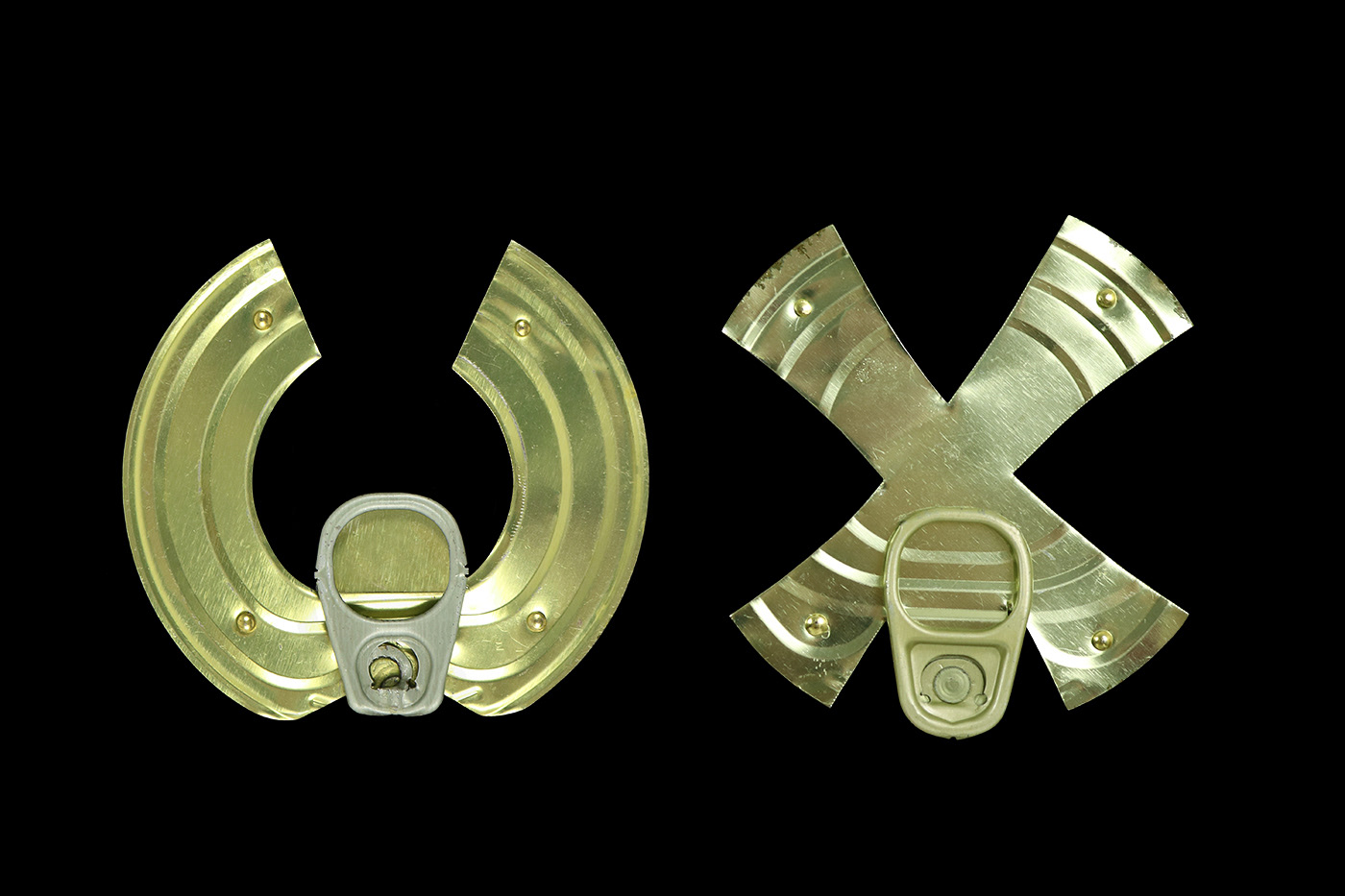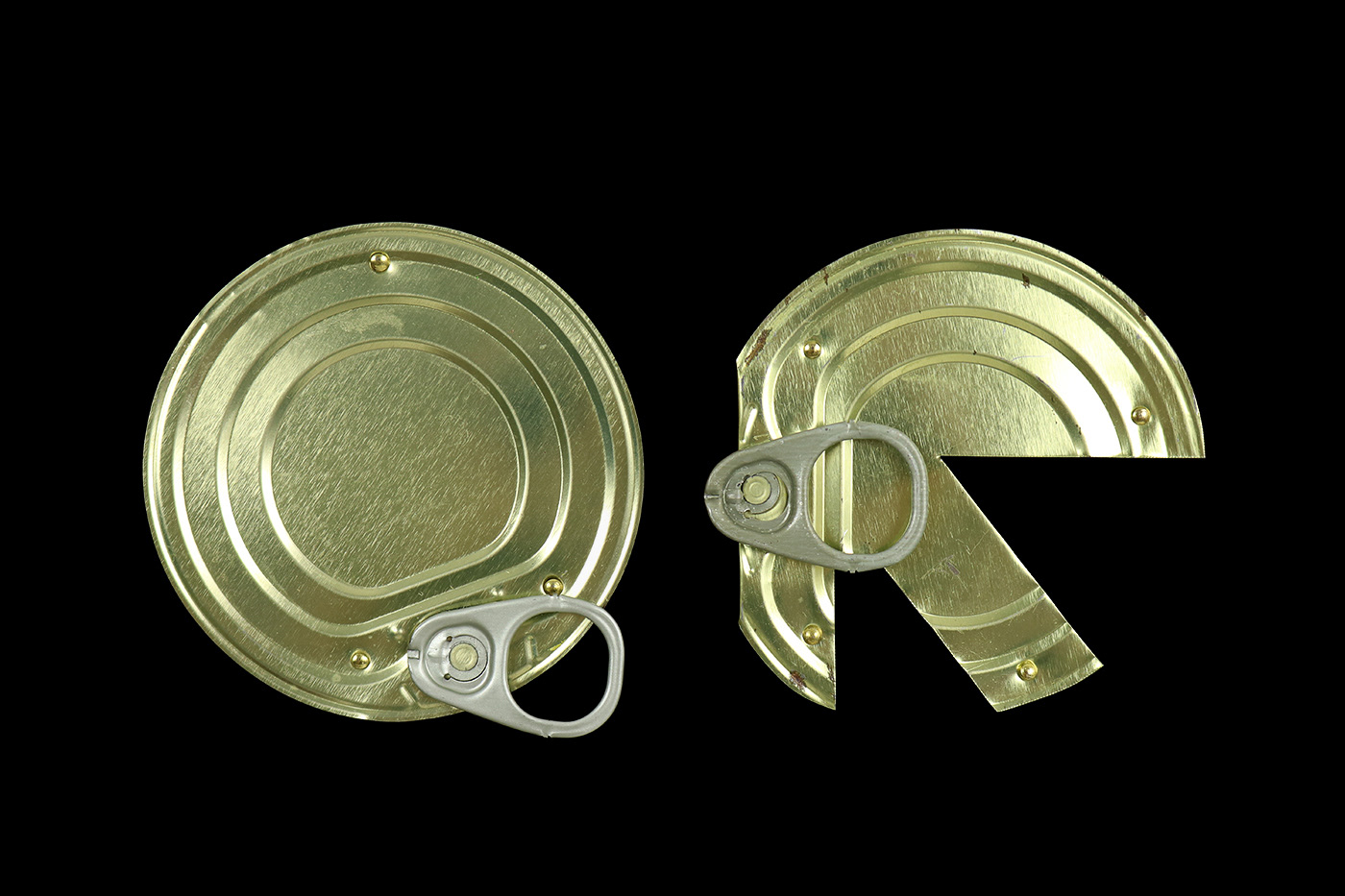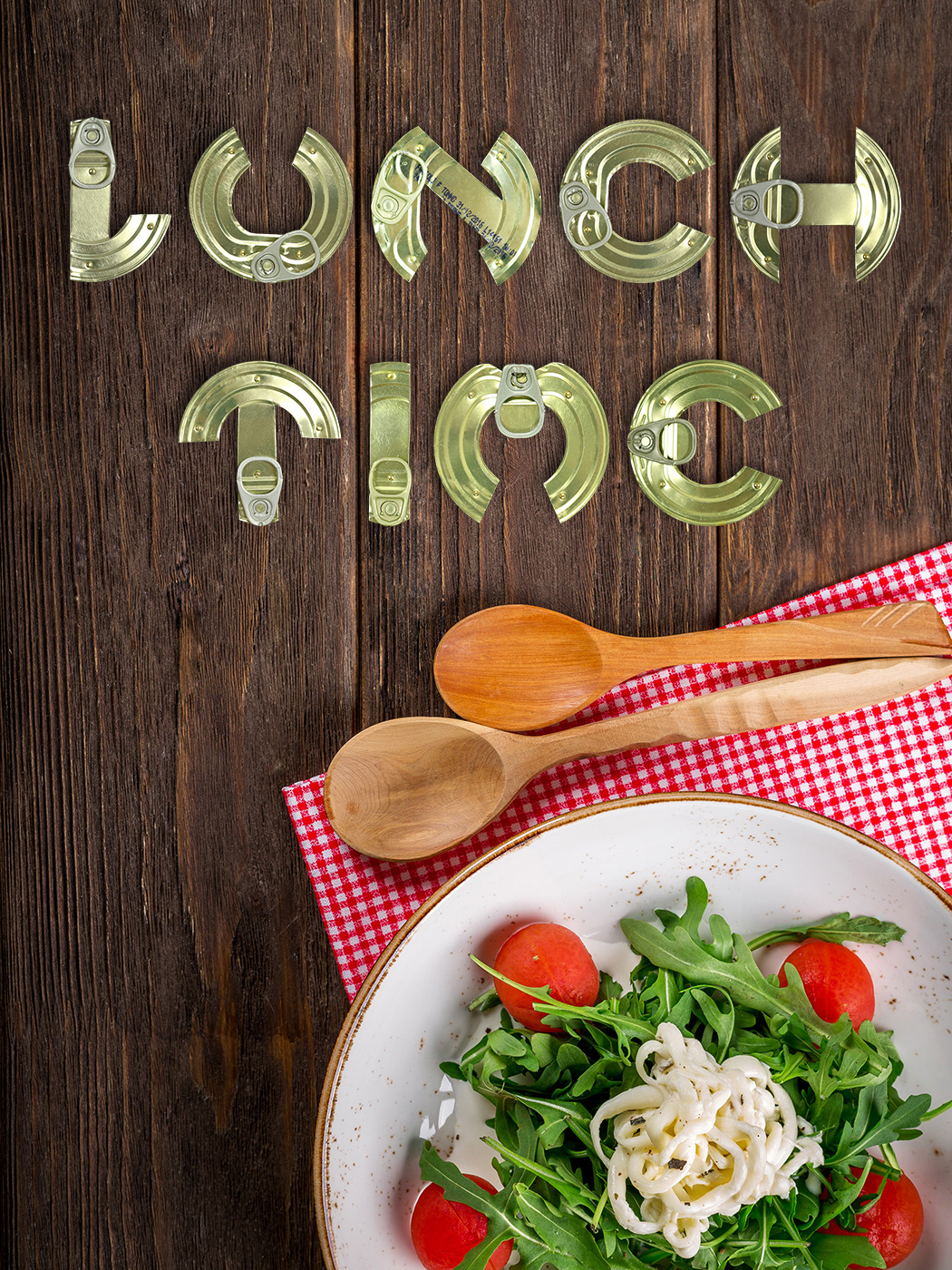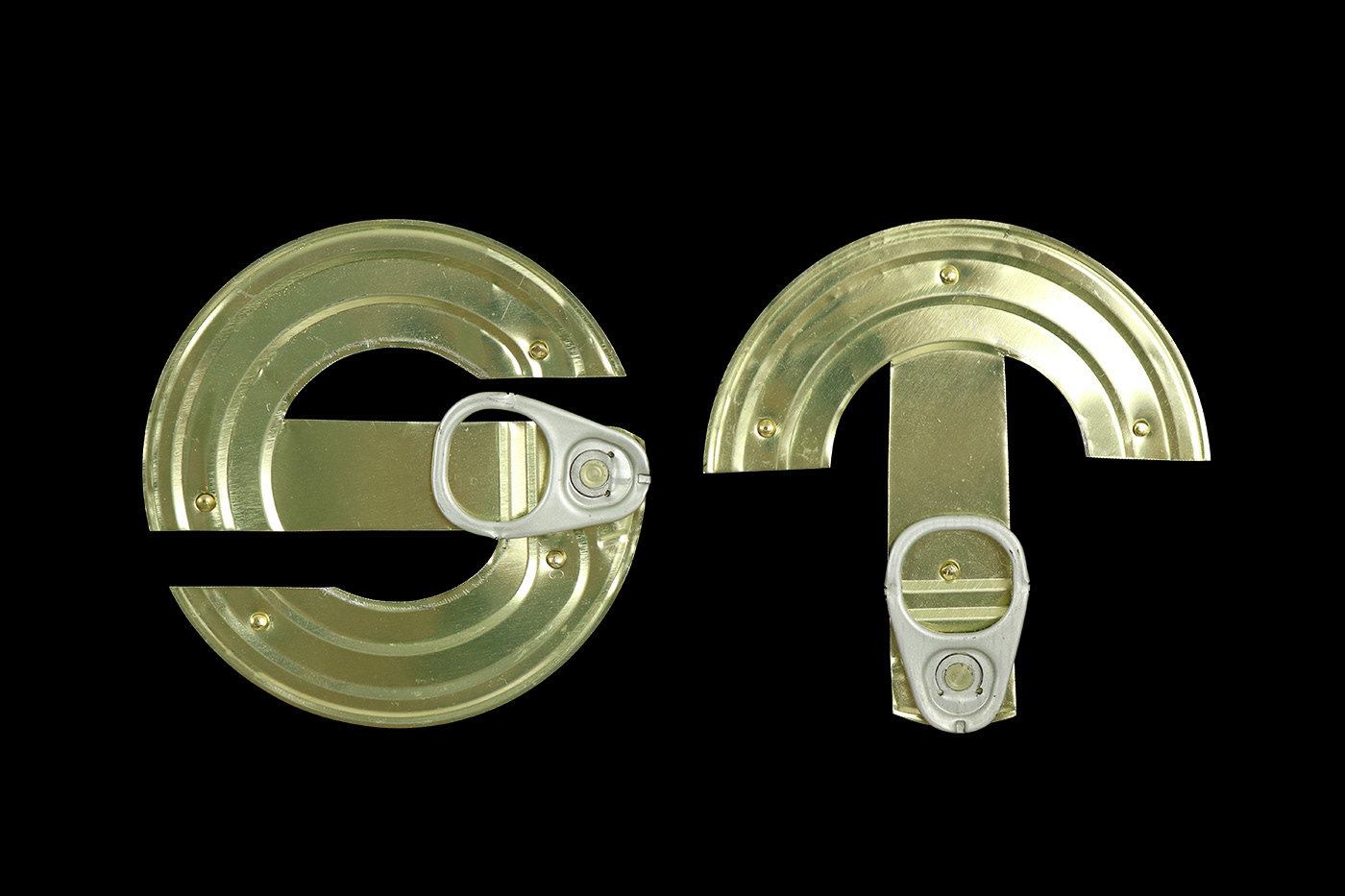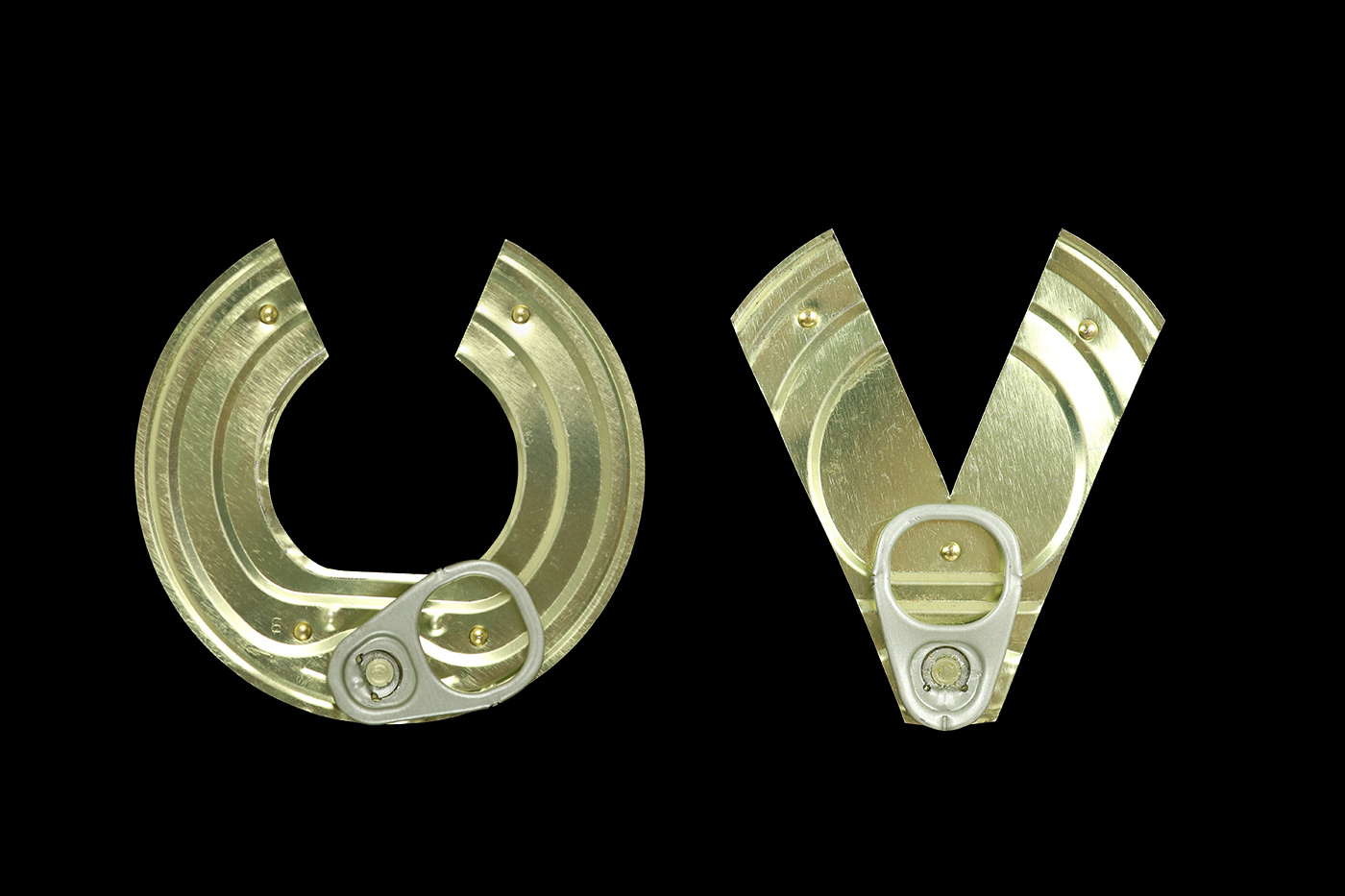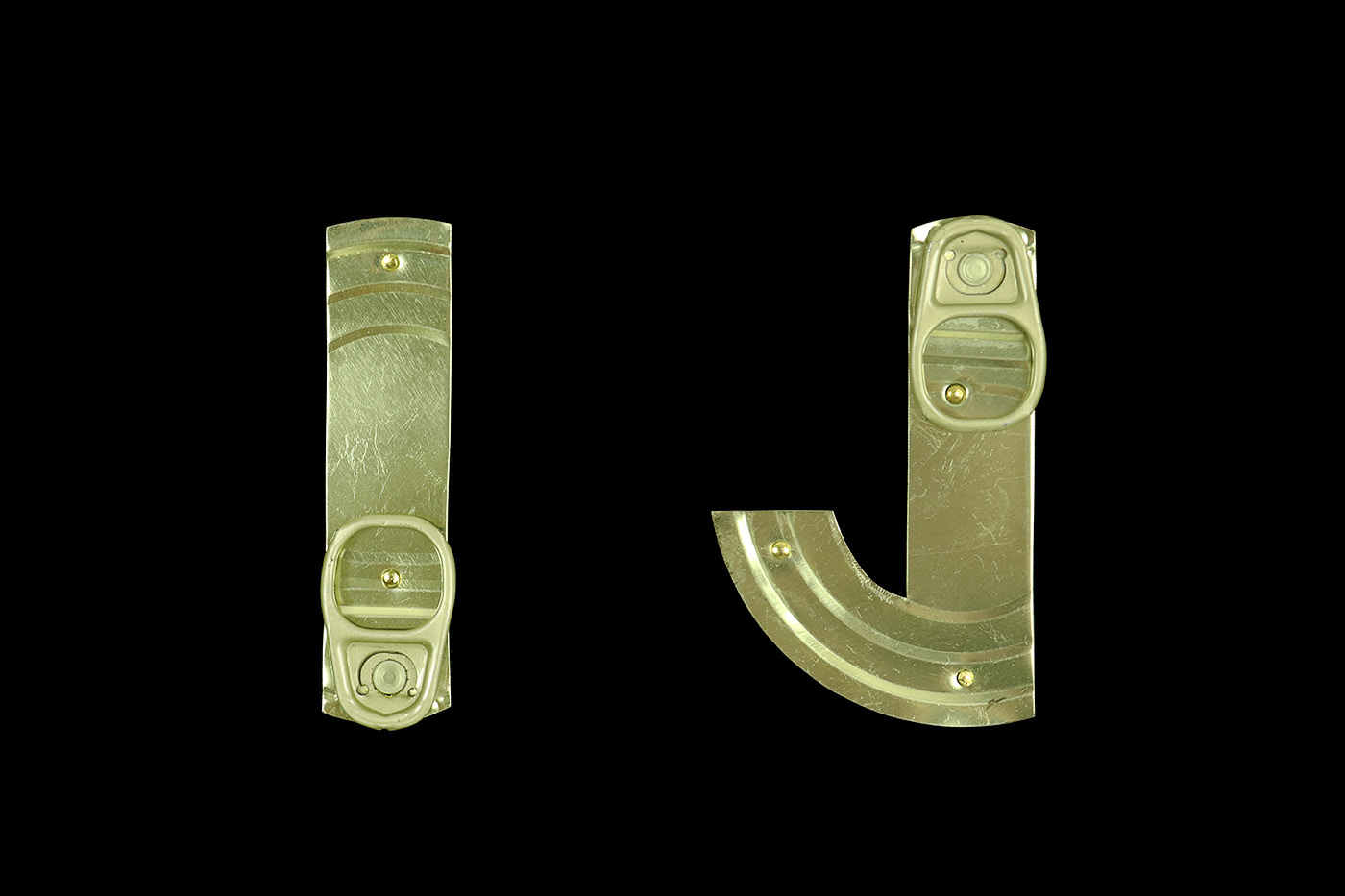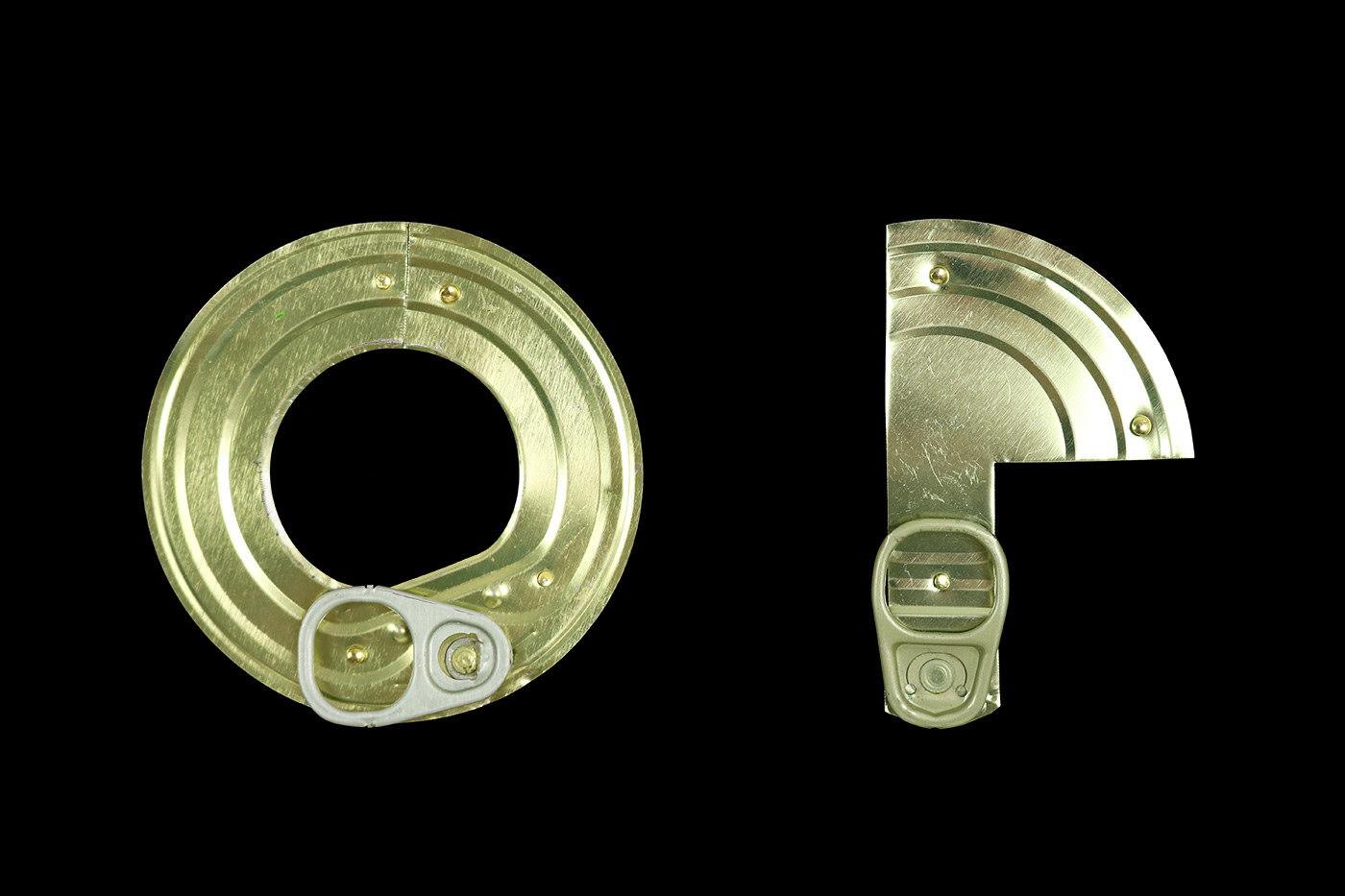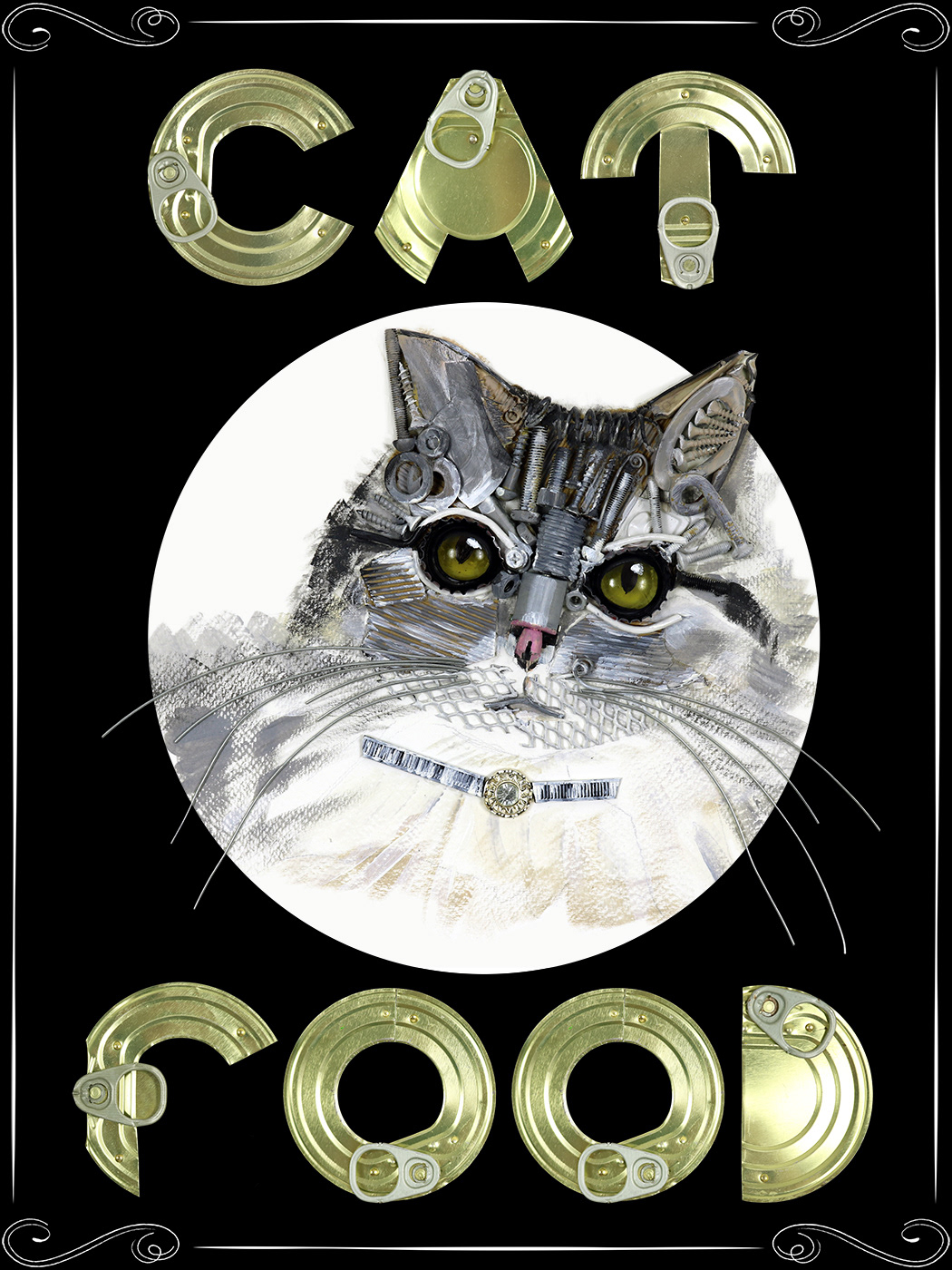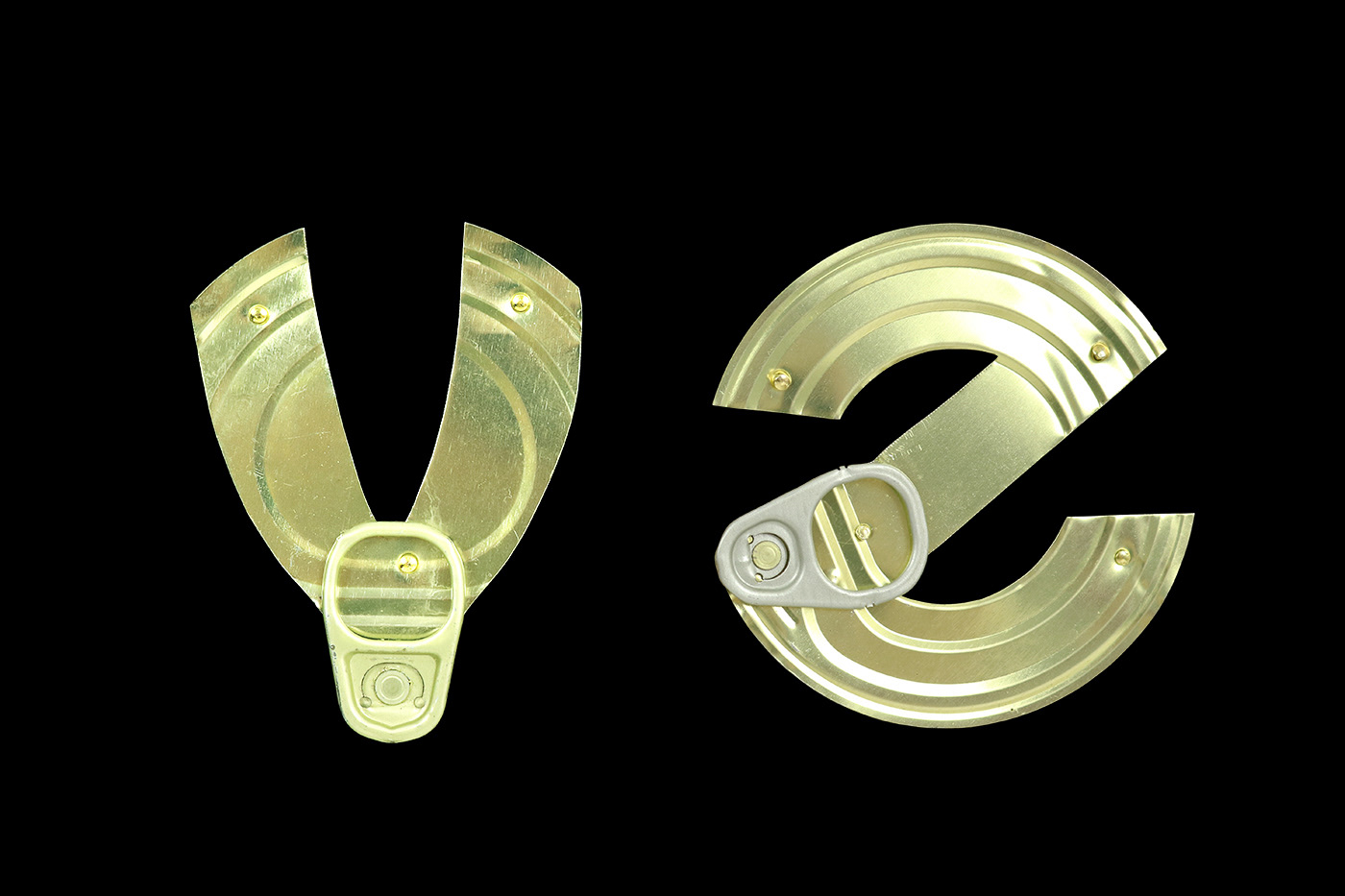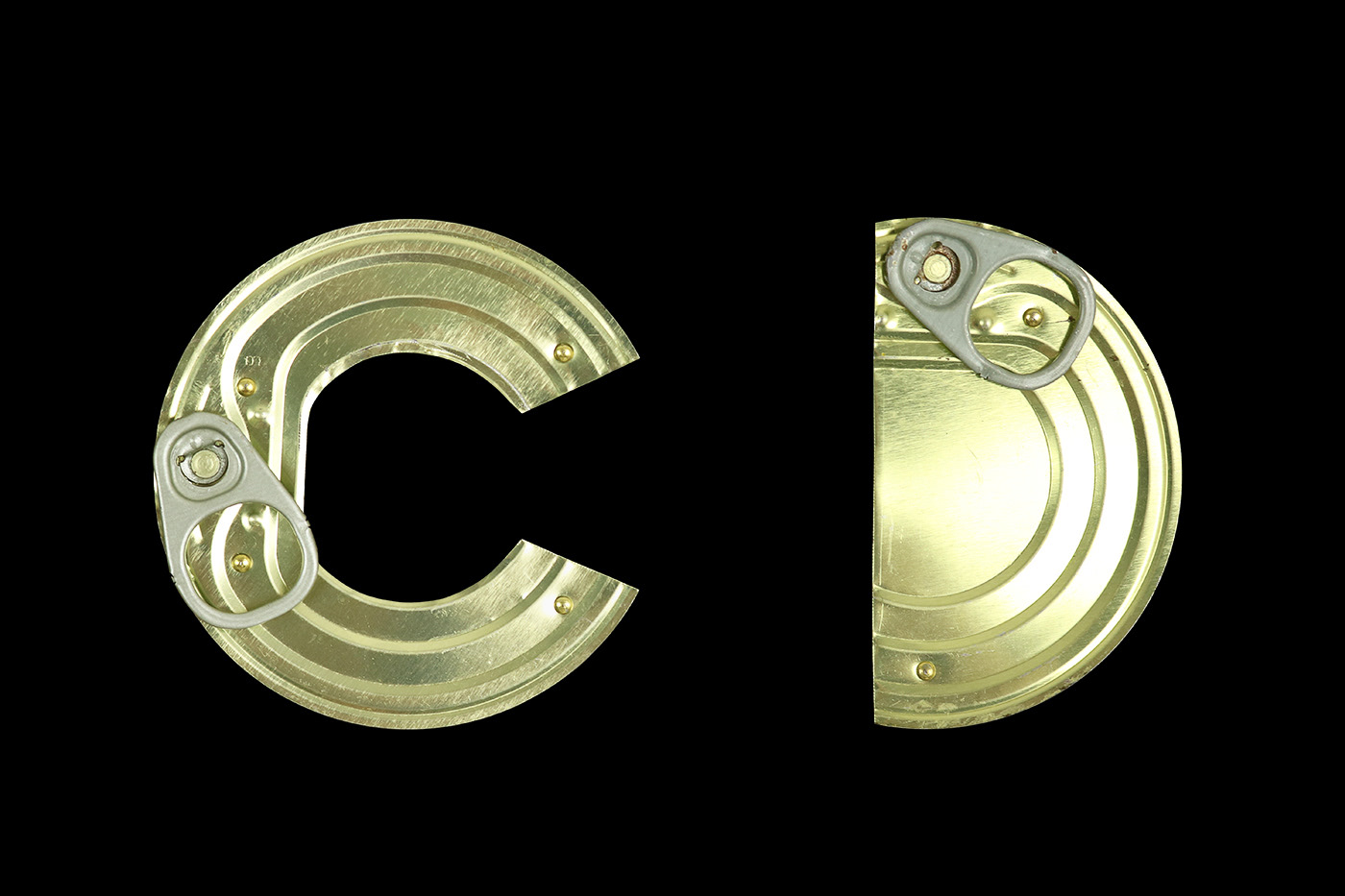
The whole of this project is handmade using recycled material. All sorts of can lids different in color and design have been used, as you can see in the photos. The difference in color and in design for each letter is not a fault but it guarantees that these letters have been produced by hand and not on the computer.
Here below you will find the complete alphabet made out of can lids.
Here below are some example of how the letters can be used